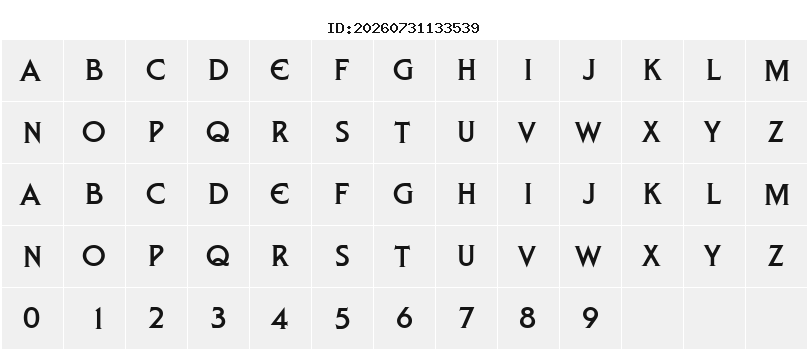
LibertyD Preview
About LibertyD.ttf
LibertyD.ttf is a modern, elegant sans-serif font designed for ultimate readability and visual harmony. Perfect for branding, headlines, web design, and print materials.